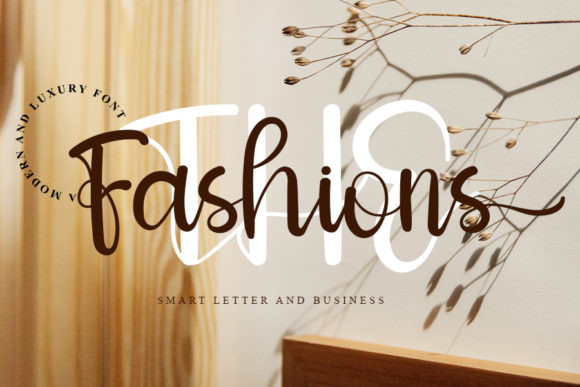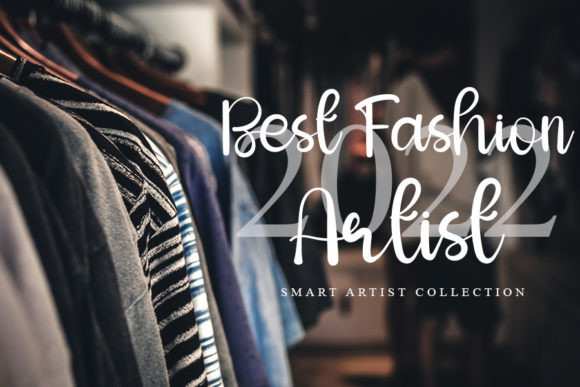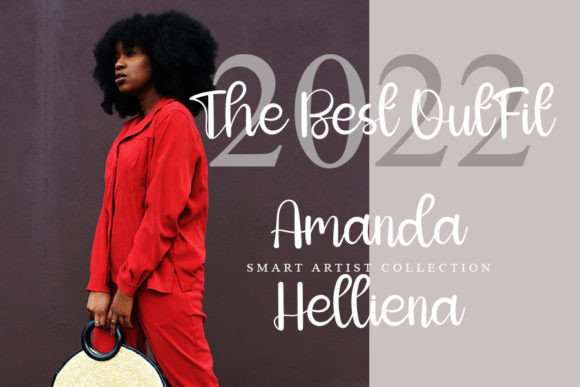
The Fashions Font
The Fashions is a relaxed and dreamy handwritten font. Whimsical and delightful, this font will brighten up each of your designs. Add it confidently to your projects, and you will love the results.